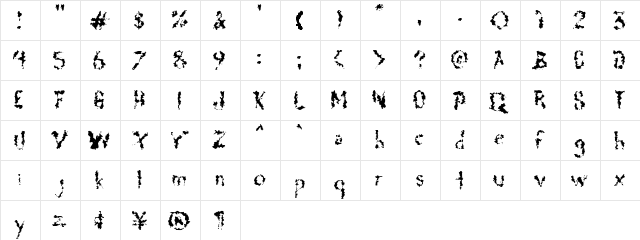
DeadGrit Regular
Design Context for DeadGrit Typeface
DeadGrit embraces imperfection — its rough, textured character adds raw authenticity to designs that want to feel lived-in and unconventional.
Suited to punk-influenced zines, underground music branding, streetwear, and raw, anti-corporate design.
Pro Tip: Pair DeadGrit with intentionally raw or lo-fi design elements. Fighting against it with overly polished surroundings will undermine its personality.